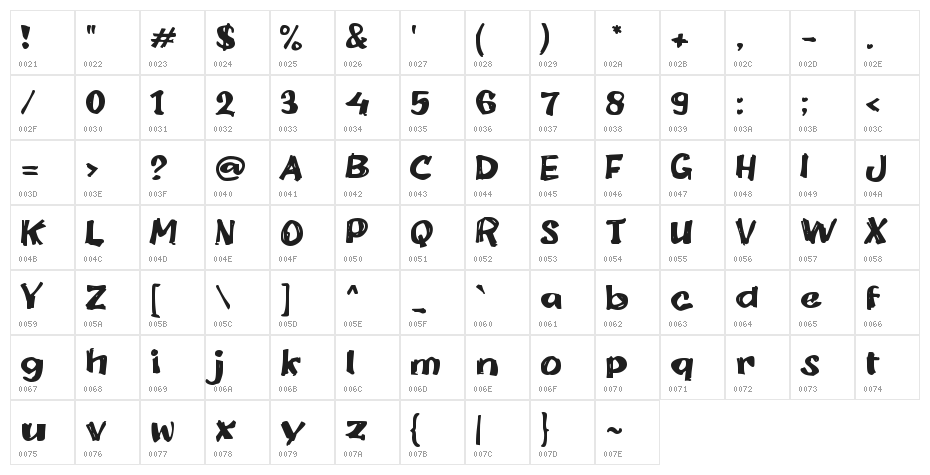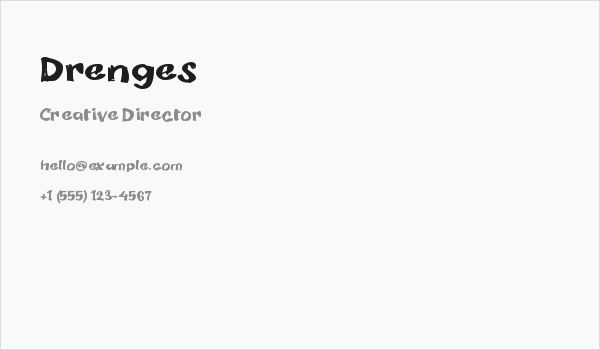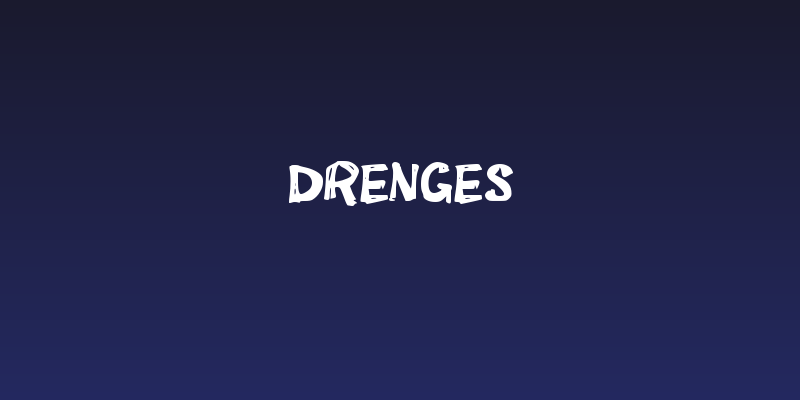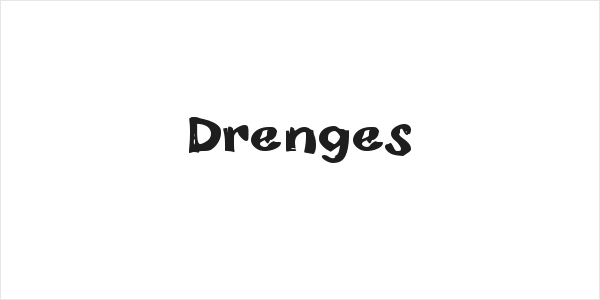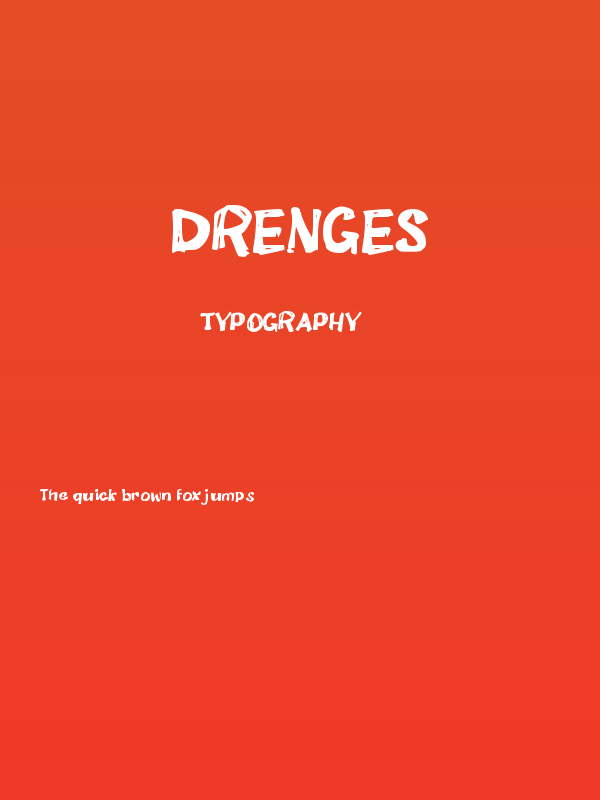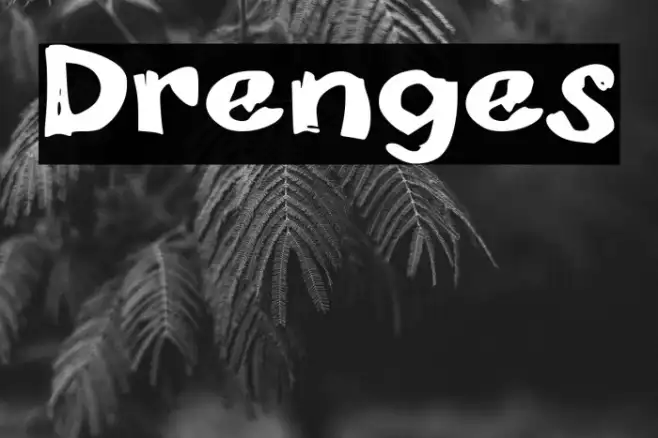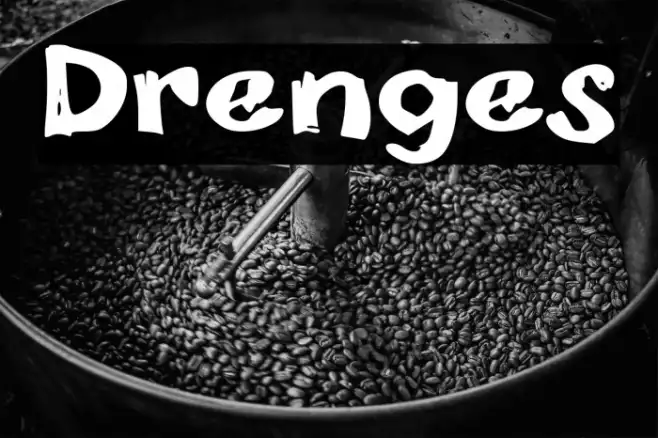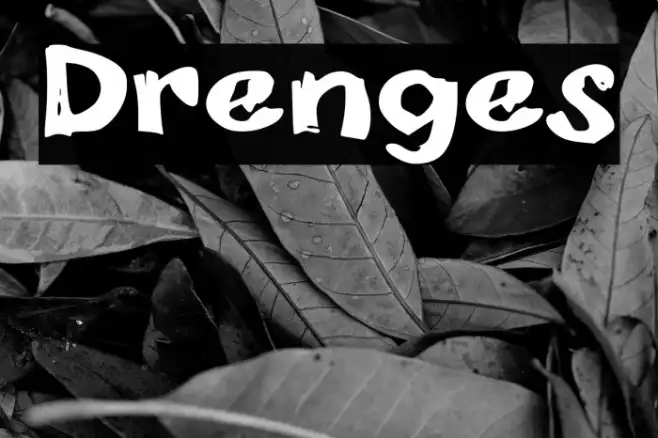
Drenges Font
Drenges Description
This font features a bold, expressive style with a hand-drawn appearance. The characters are slightly irregular, giving it a playful and dynamic feel. The strokes are thick and uneven, adding to its casual and informal look. The uppercase and lowercase letters maintain a consistent style, with rounded edges and a slightly slanted orientation. Numbers and special characters follow the same aesthetic, making the font suitable for creative and artistic projects. Its unique design makes it stand out, perfect for grabbing attention.
| Proposed Projects | Ideal for posters, children's books, comic strips, and creative branding. |